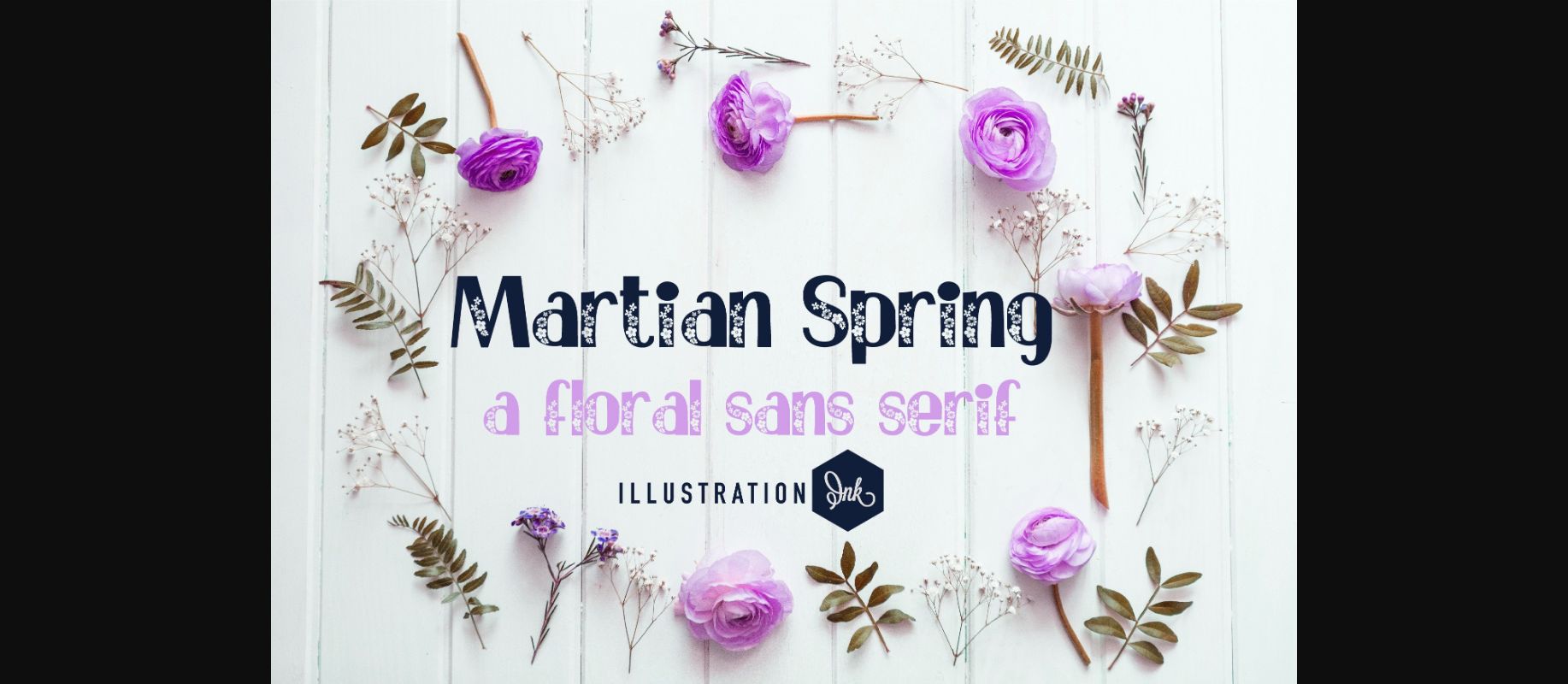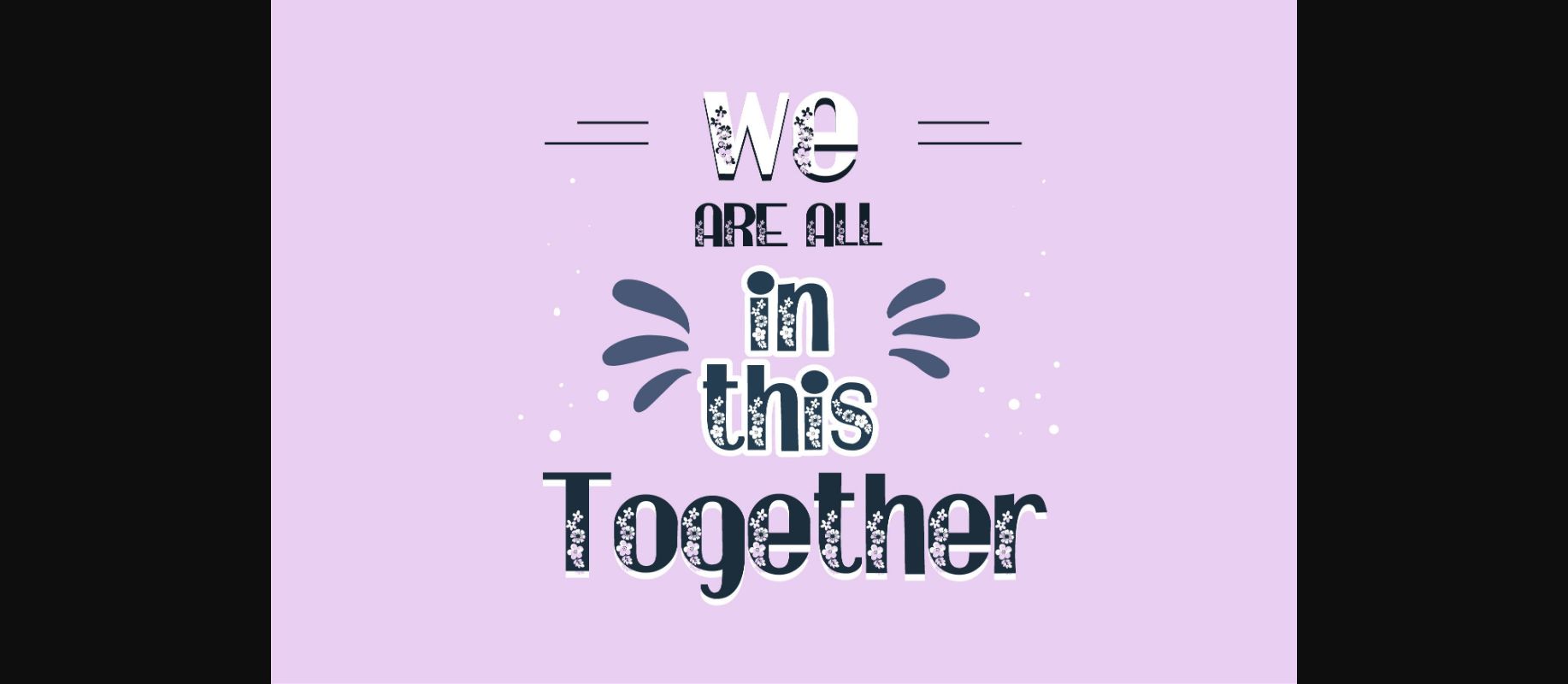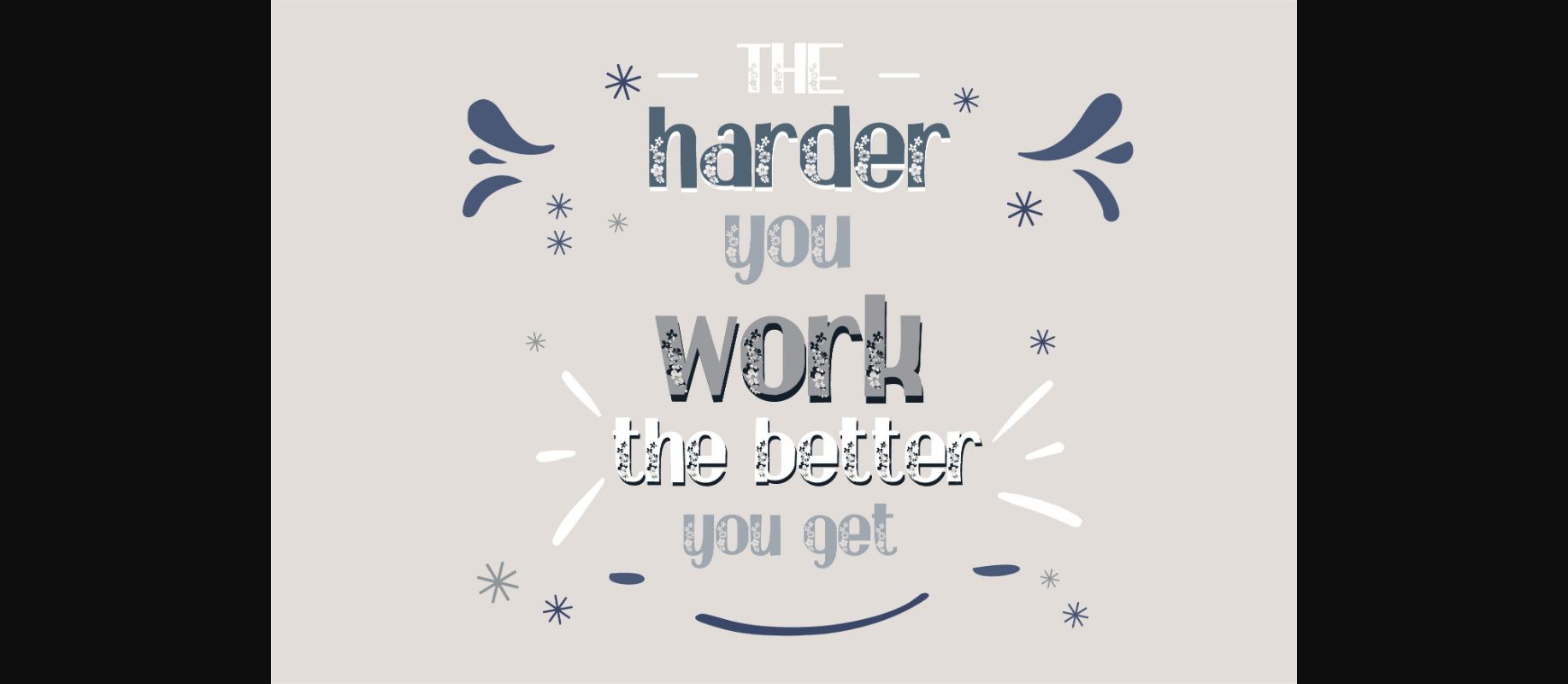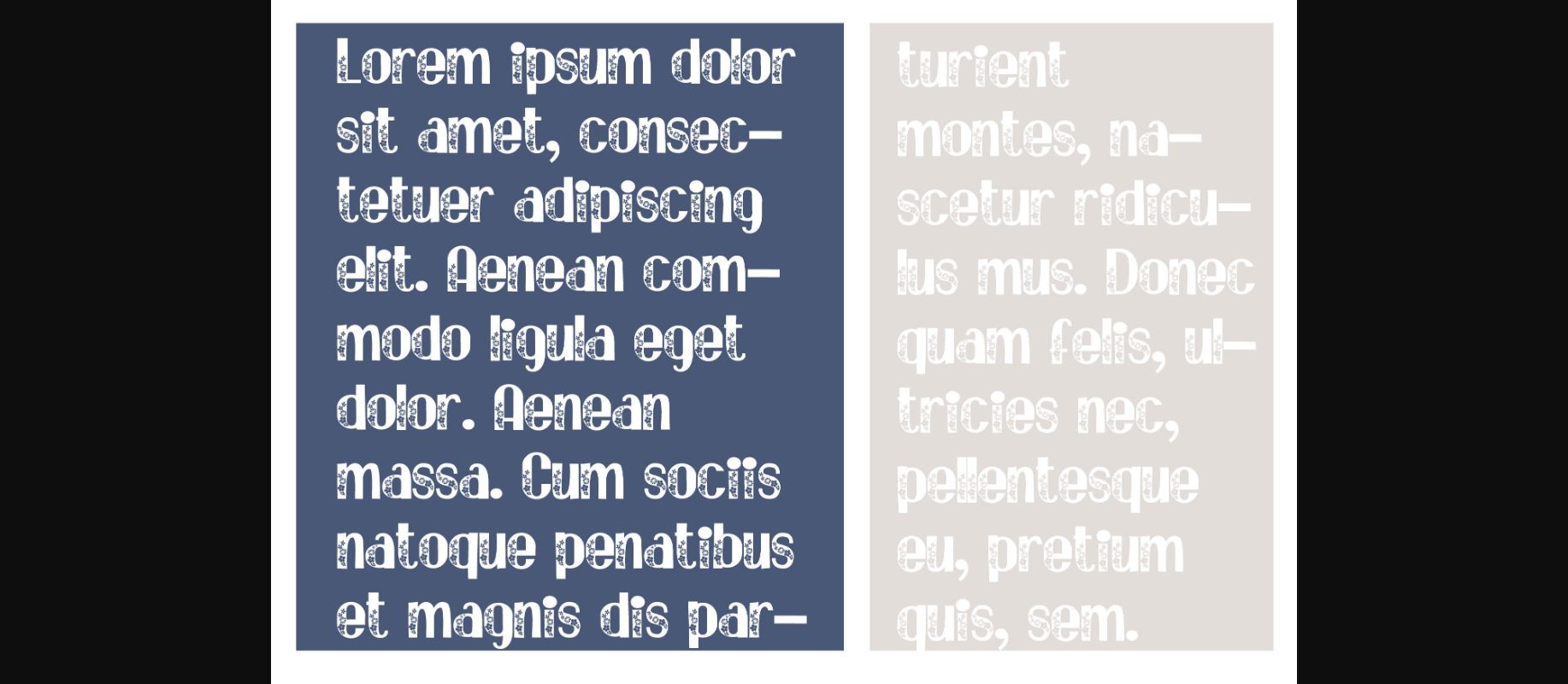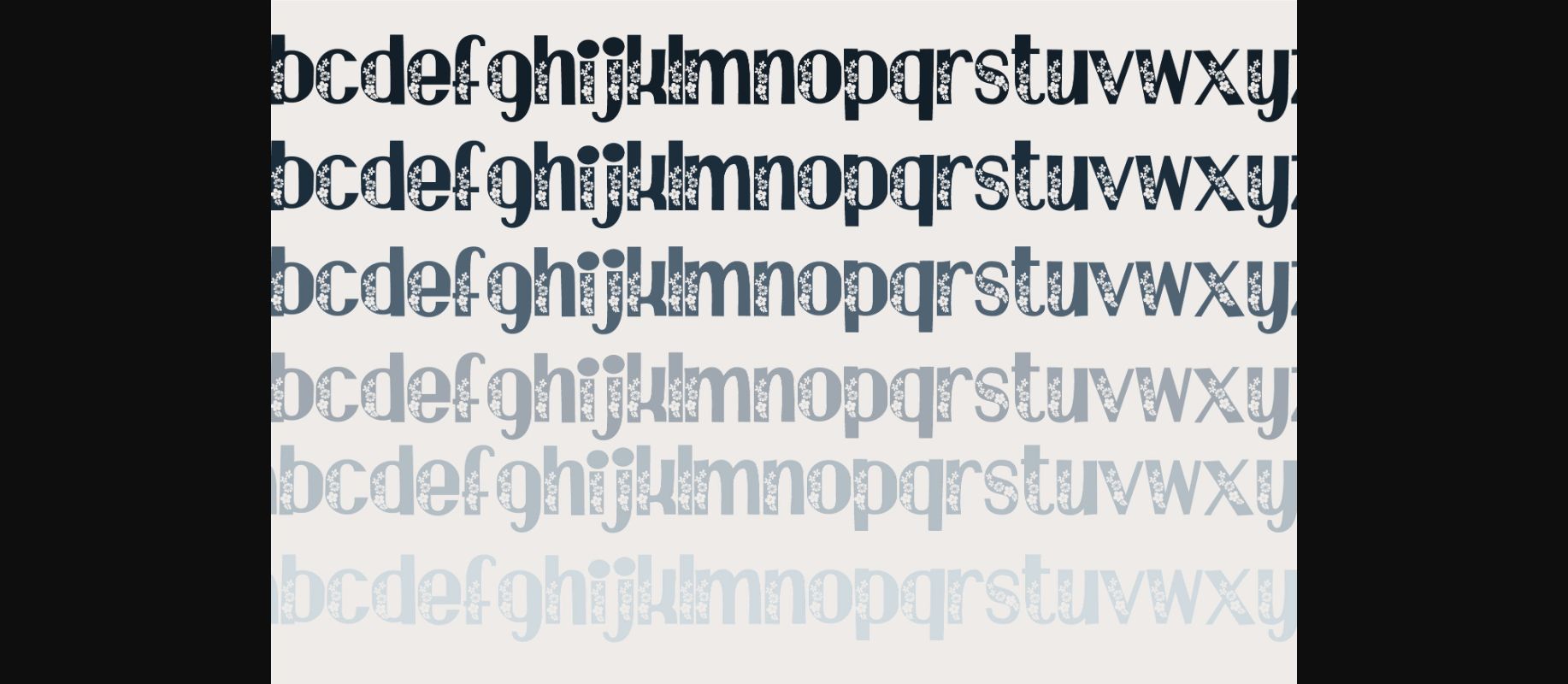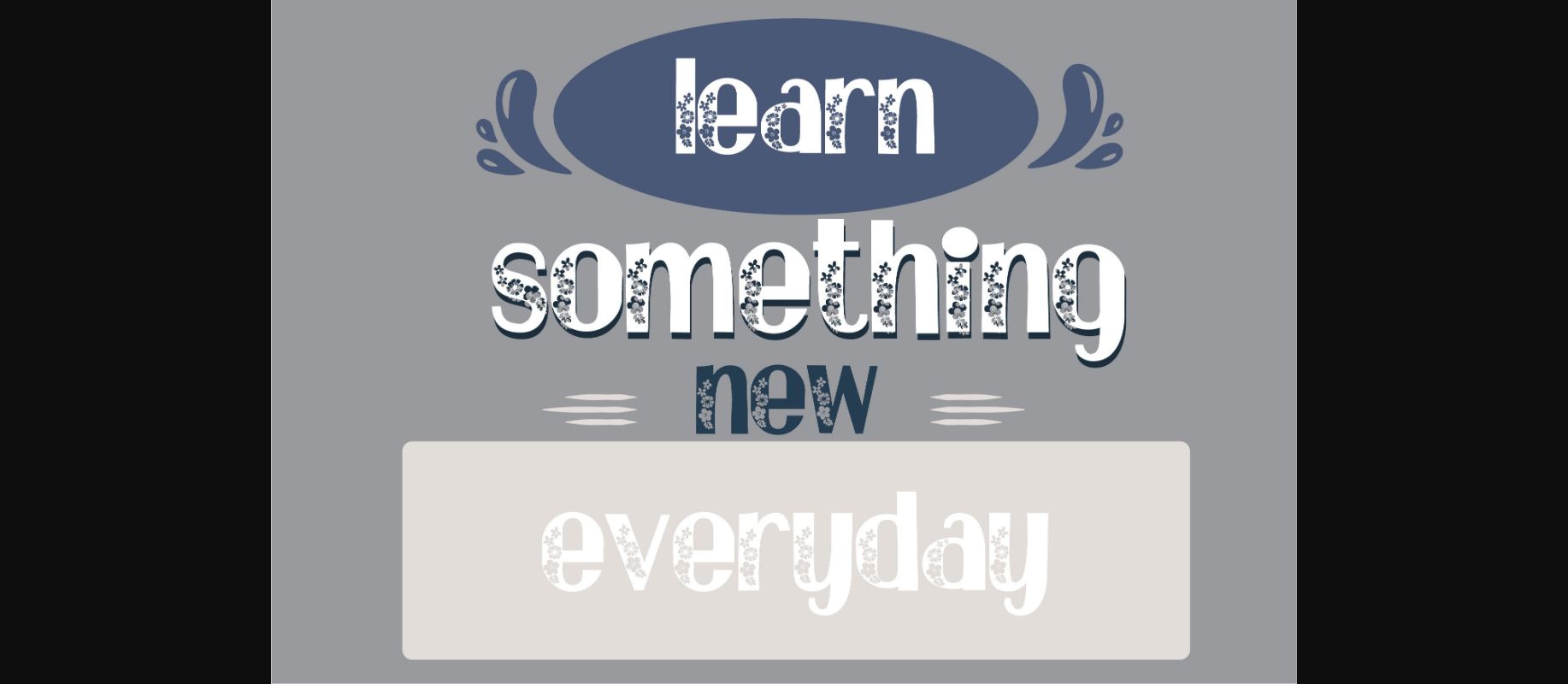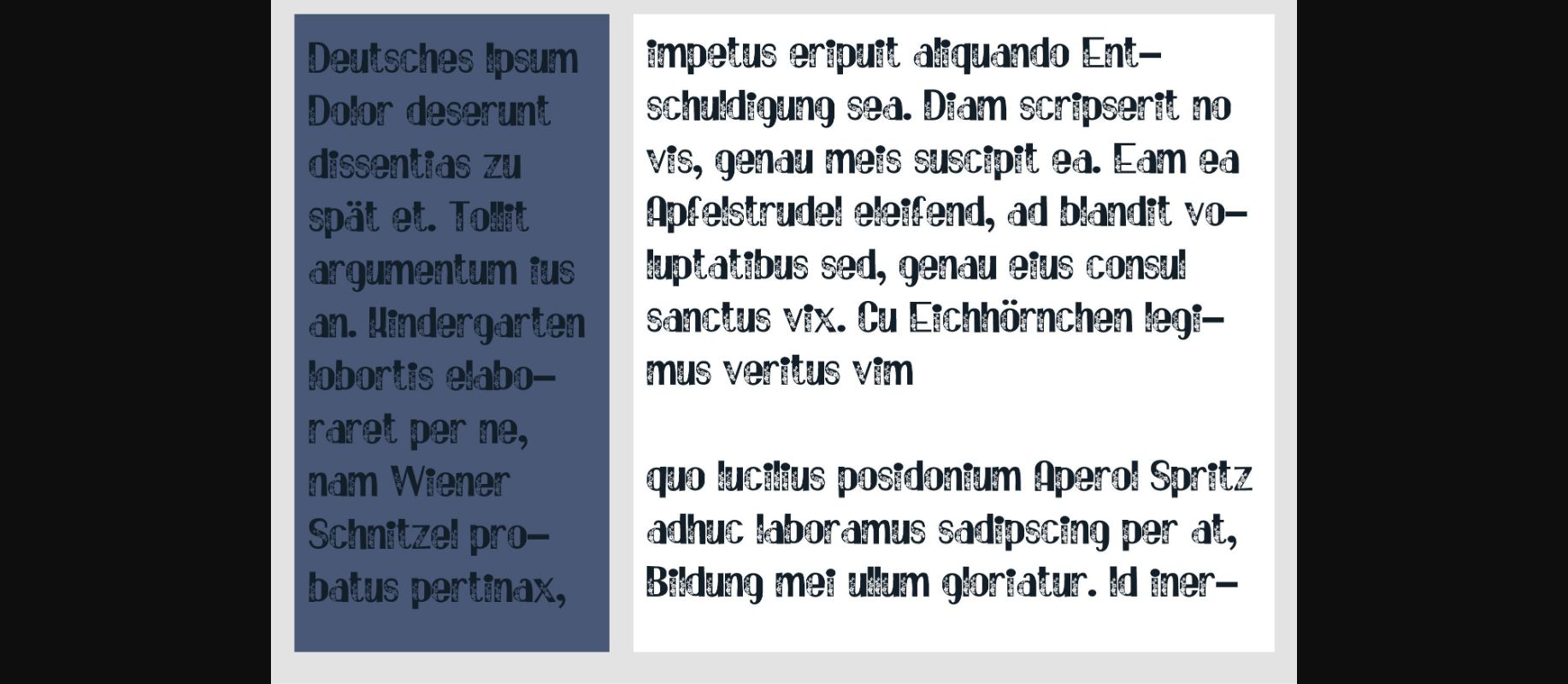
HomeDecorative FontsMartian Spring Font Decorative Fonts Martian Spring Font FacebookXPinterestWhatsApp 1 of 9 ... Martian Spring Font Poster 2... Martian Spring Font Poster 3... Martian Spring Font Poster 4... Martian Spring Font Poster 5... Martian Spring Font Poster 6... Martian Spring Font Poster 7... Martian Spring Font Poster 8... Martian Spring Font Poster 9... About Martian Spring Font Martian Spring is a fun and whimsical decorative display font. Fall in love with its incredibly distinct and timeless style and use it to create spectacular designs! DOWNLOAD NOW People also explored Sillvia Font Strawberry Script Thirteenth Classmate Font Is Magic Font Garavien PumKinz Witch Font Mafgarious Font Ditho Font Aromatic Font 384 0 TagsMartian Spring Font Previous articleLovely Loquacious FontNext articleMay Day Font LEAVE A REPLY Cancel reply Comment: Please enter your comment! Name:* Please enter your name here Email:* You have entered an incorrect email address! Please enter your email address here Website: Save my name, email, and website in this browser for the next time I comment. Personal Use Free Persephone Free Personal Use Free Read more about this font Mahisya Personal Use Free Read more about this font Ammanda Personal Use Free Read more about this font Stronger Personal Use Free Read more about this font BLOG 5 Fonts That Will Dominate Design Trends in 2026 5 Fonts for 2026 That Will Dominate Design Trends Typography plays a critical role in visual communication, and as we look ahead to 2026, it’s... Top 10 Handwritten Fonts That Elevate Your Designs Fonts That Capture the Spirit of New York City Top 7 Google Fonts Alternatives for Faster and Privacy-Friendly Web Design (2025)